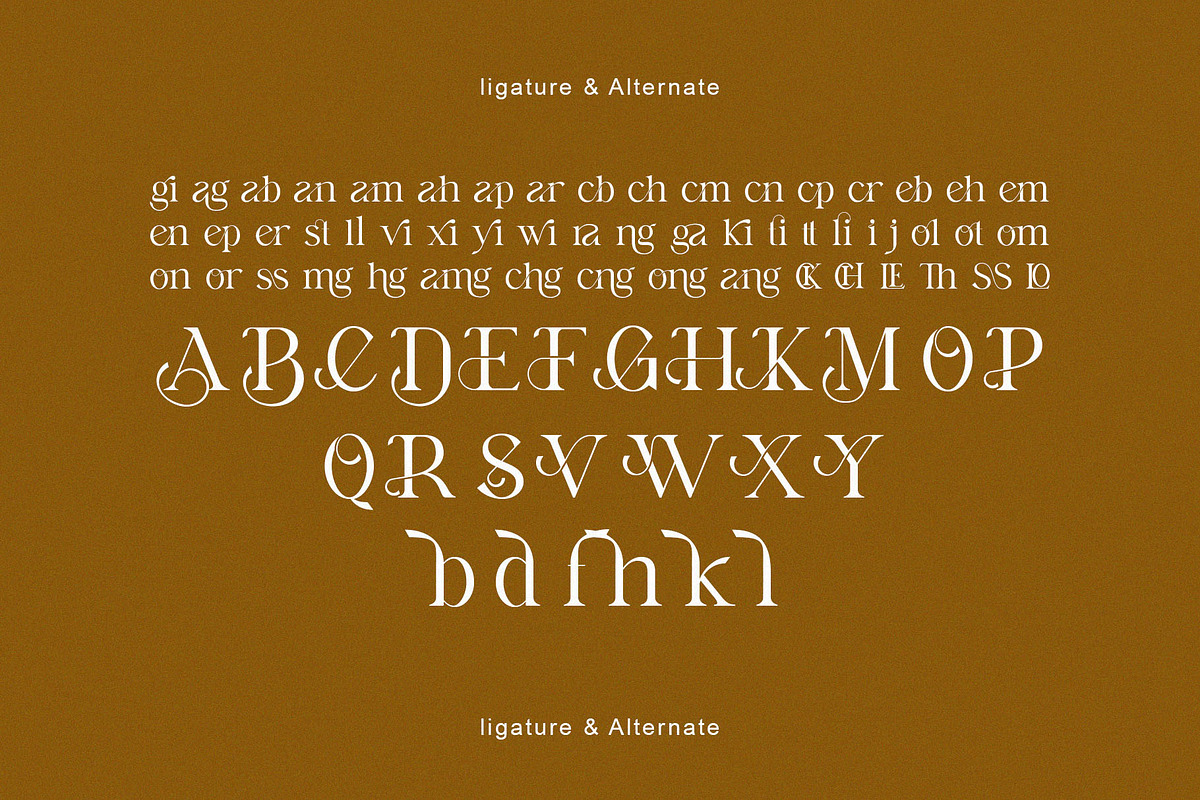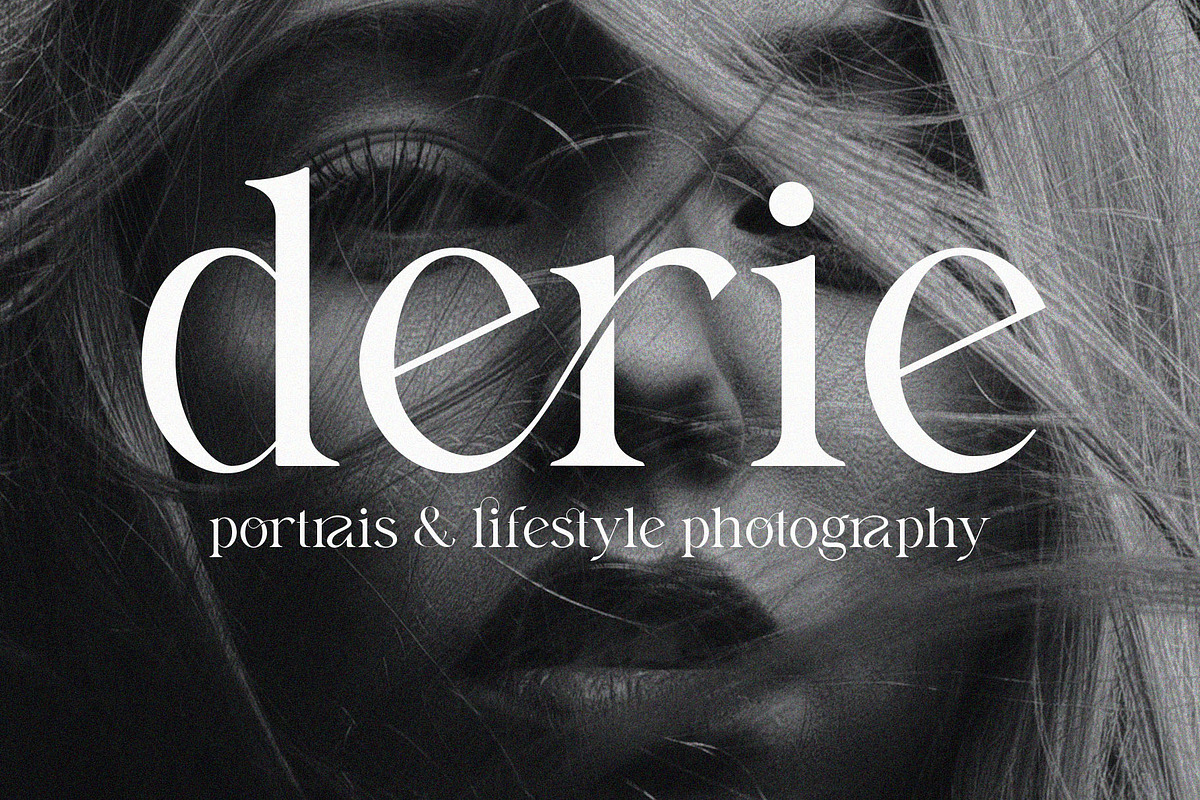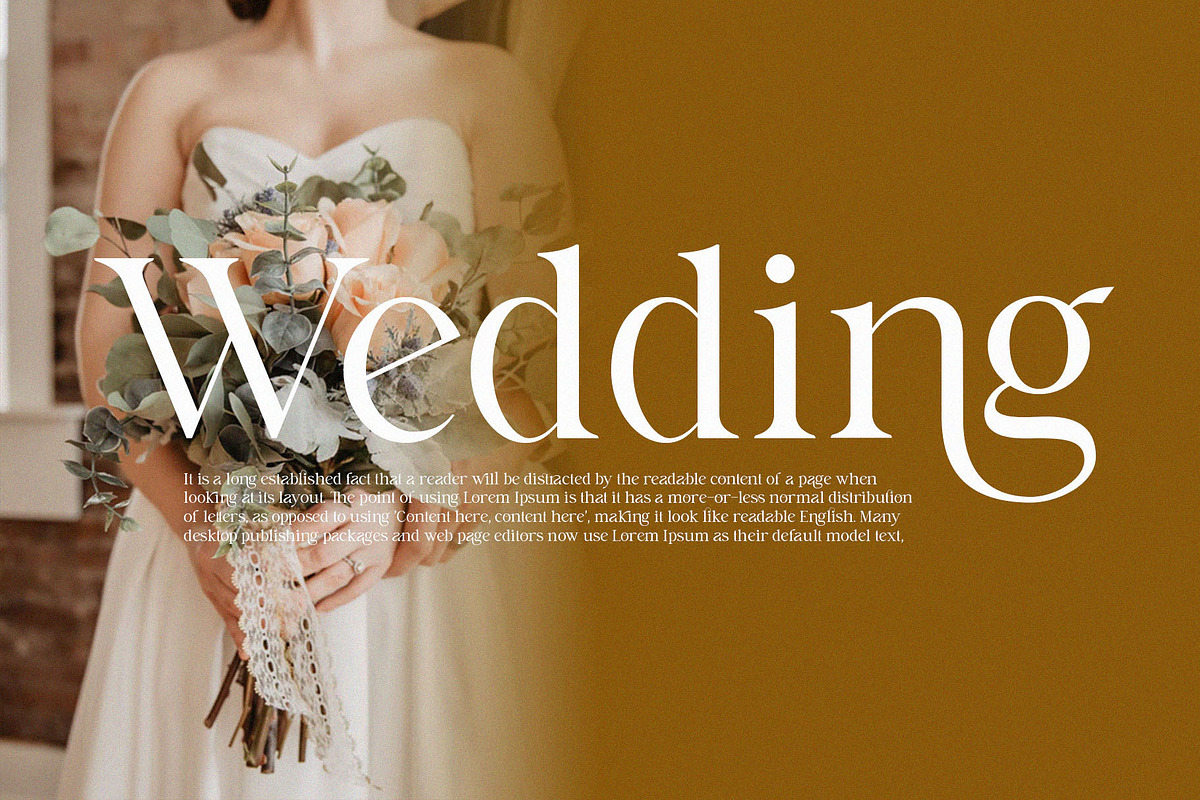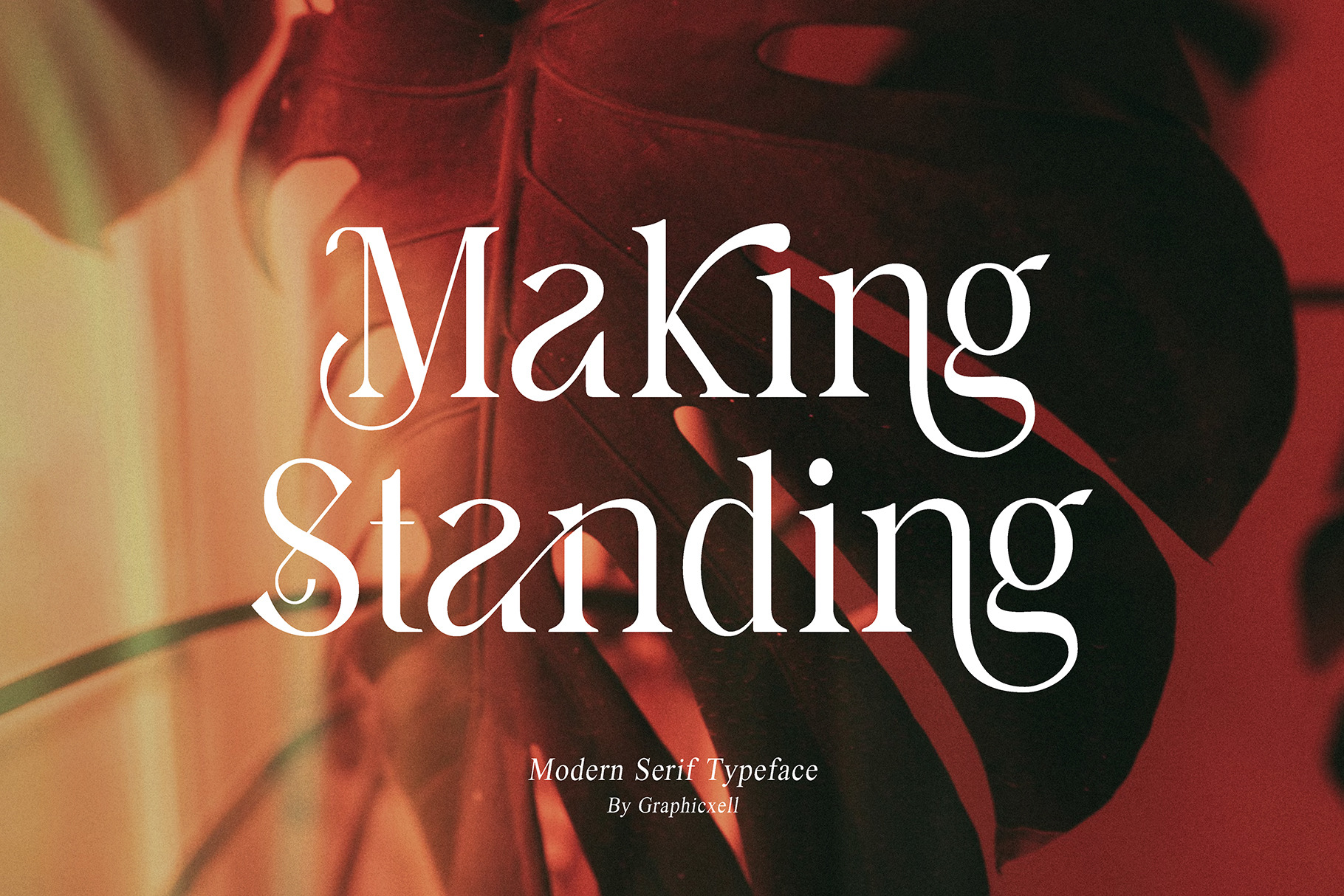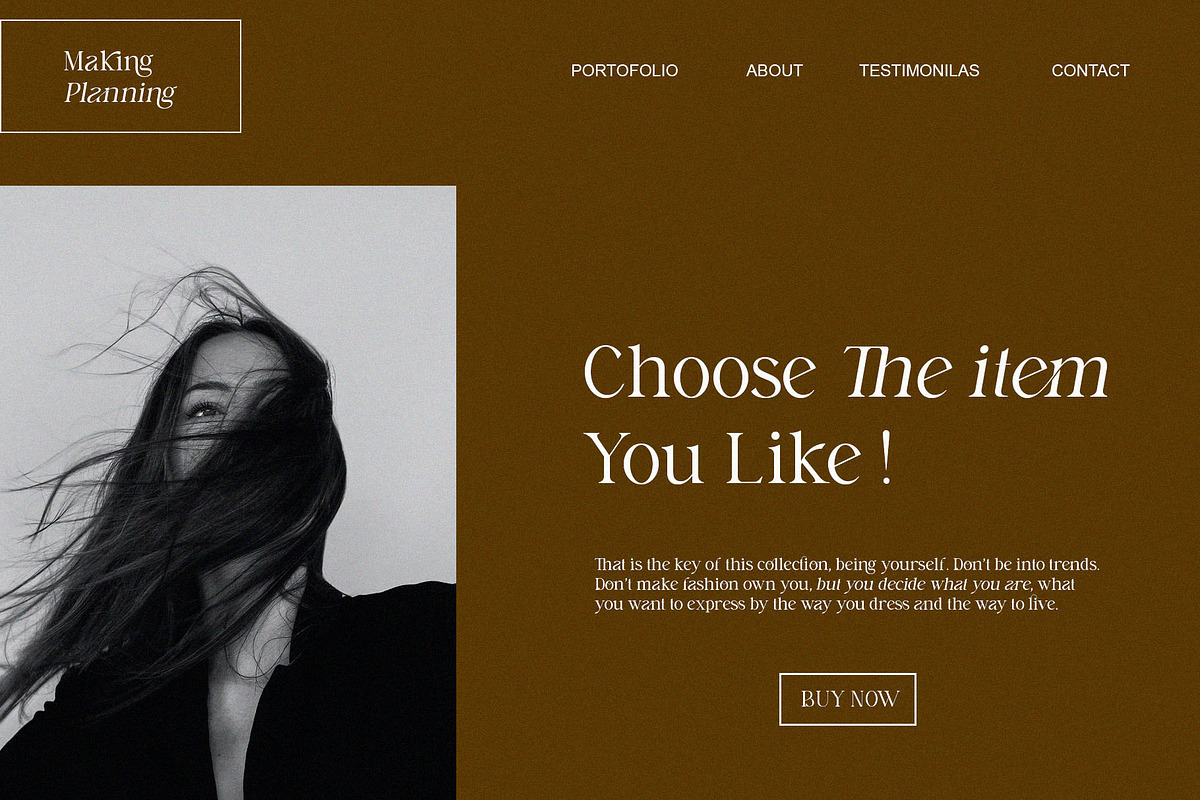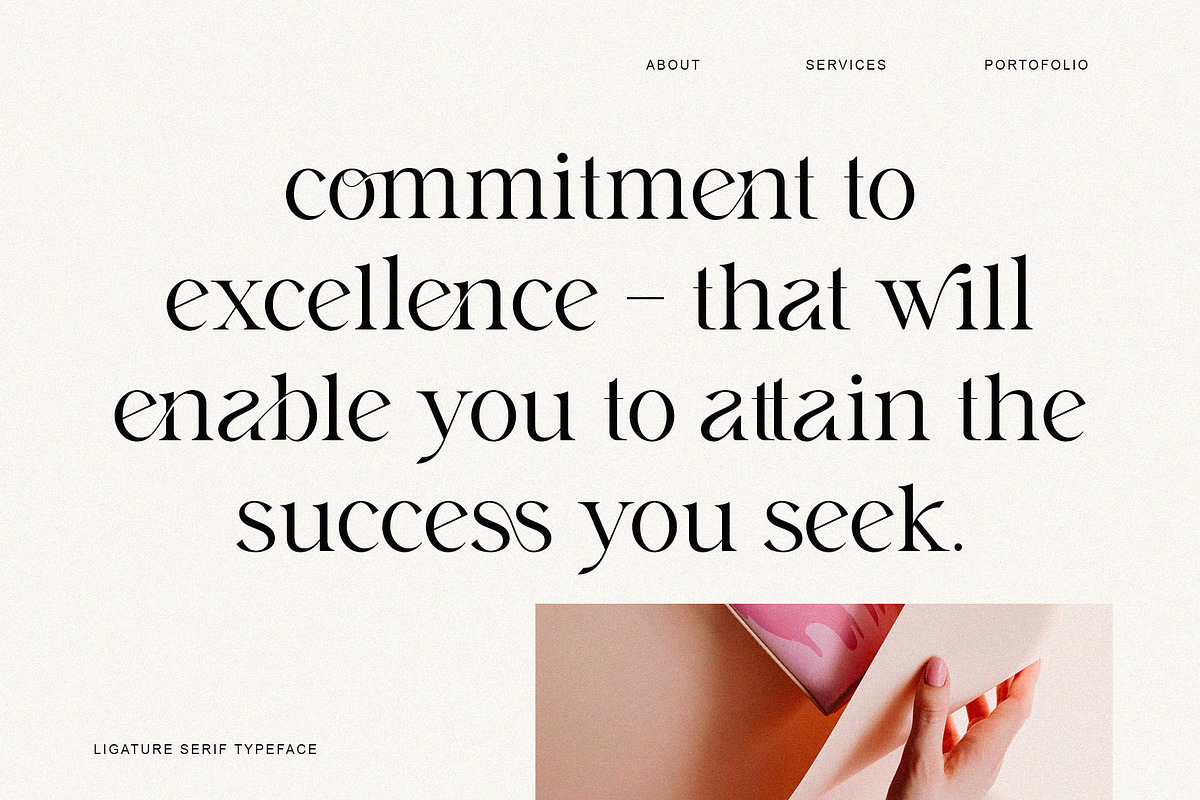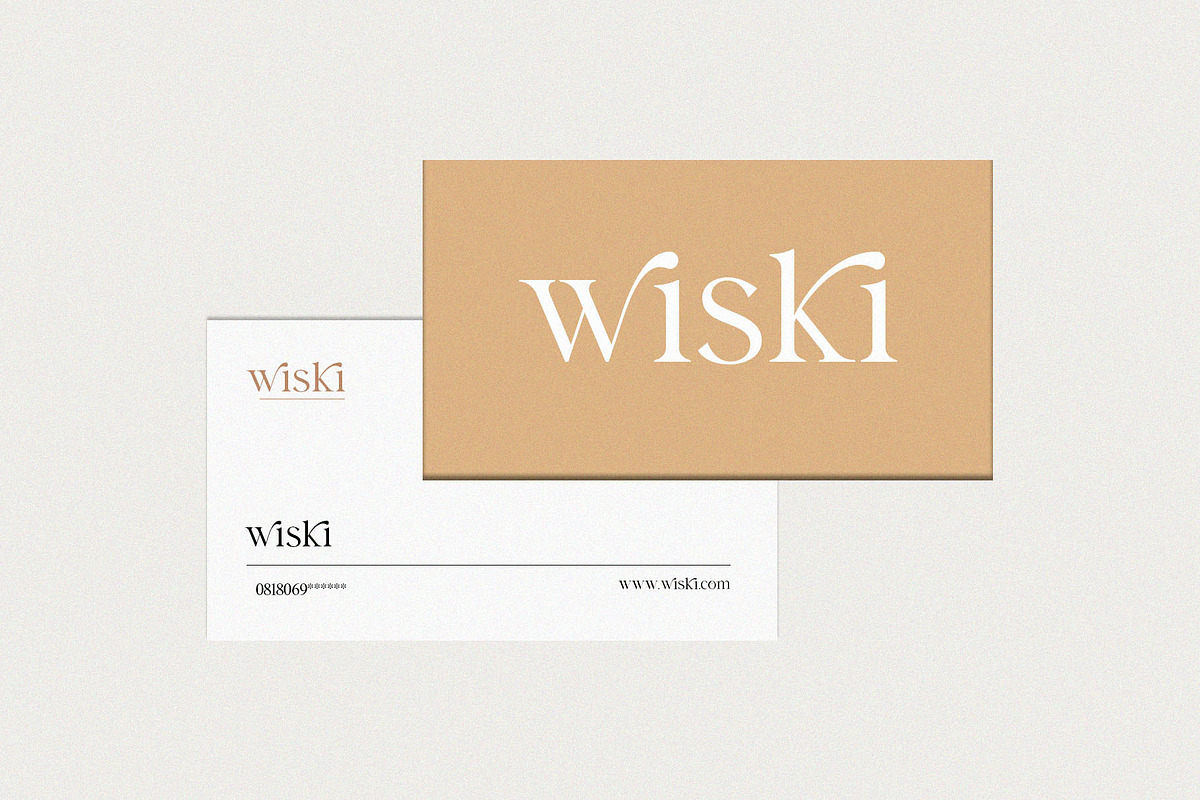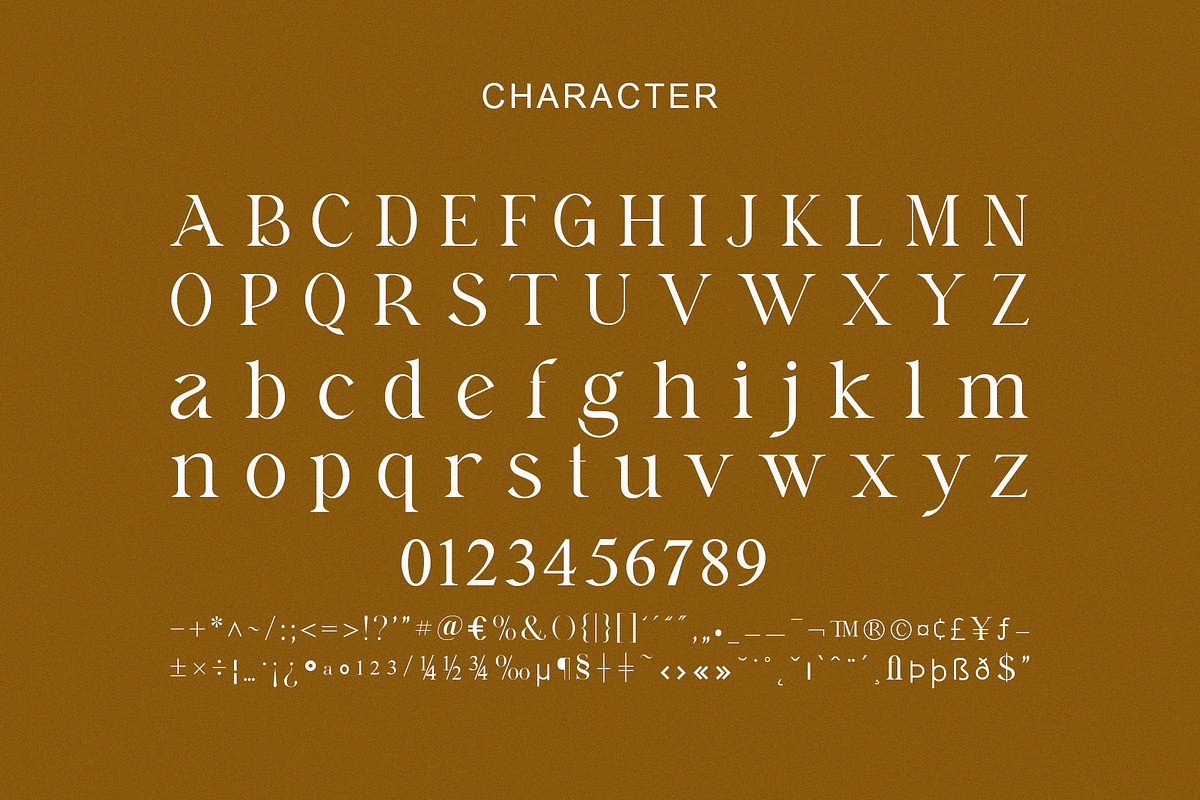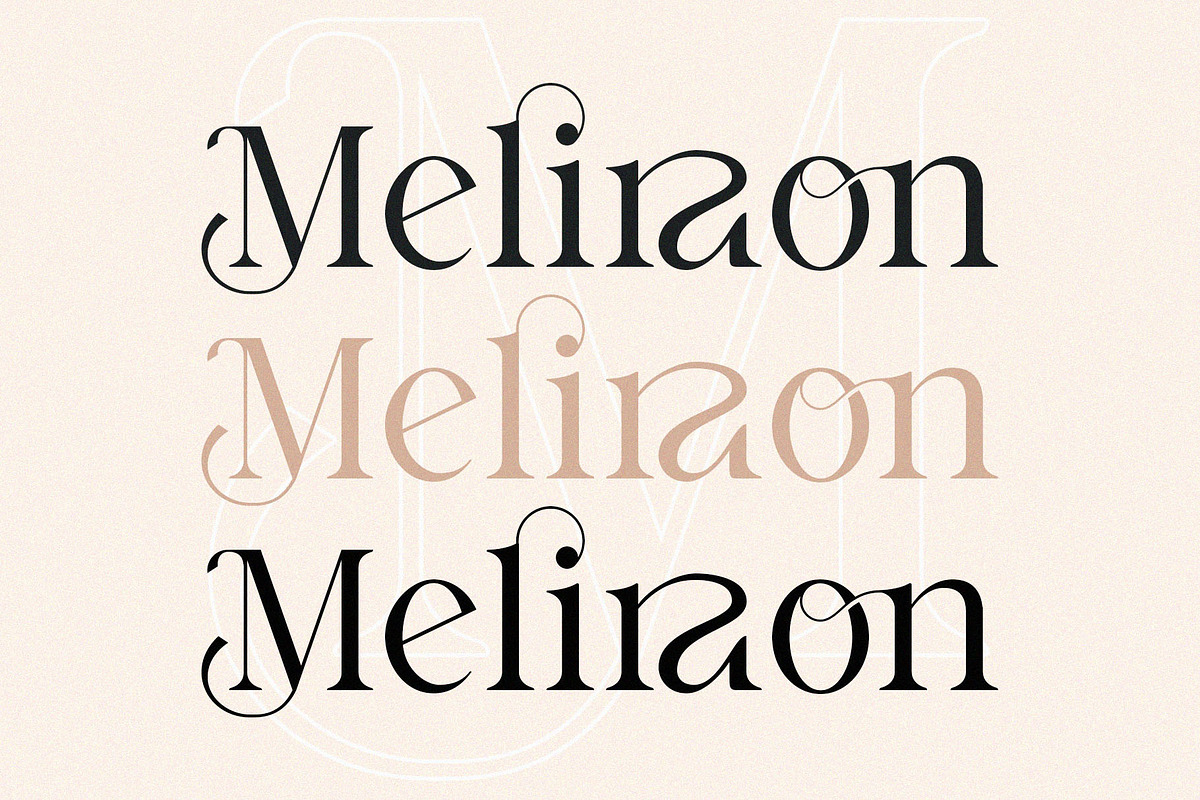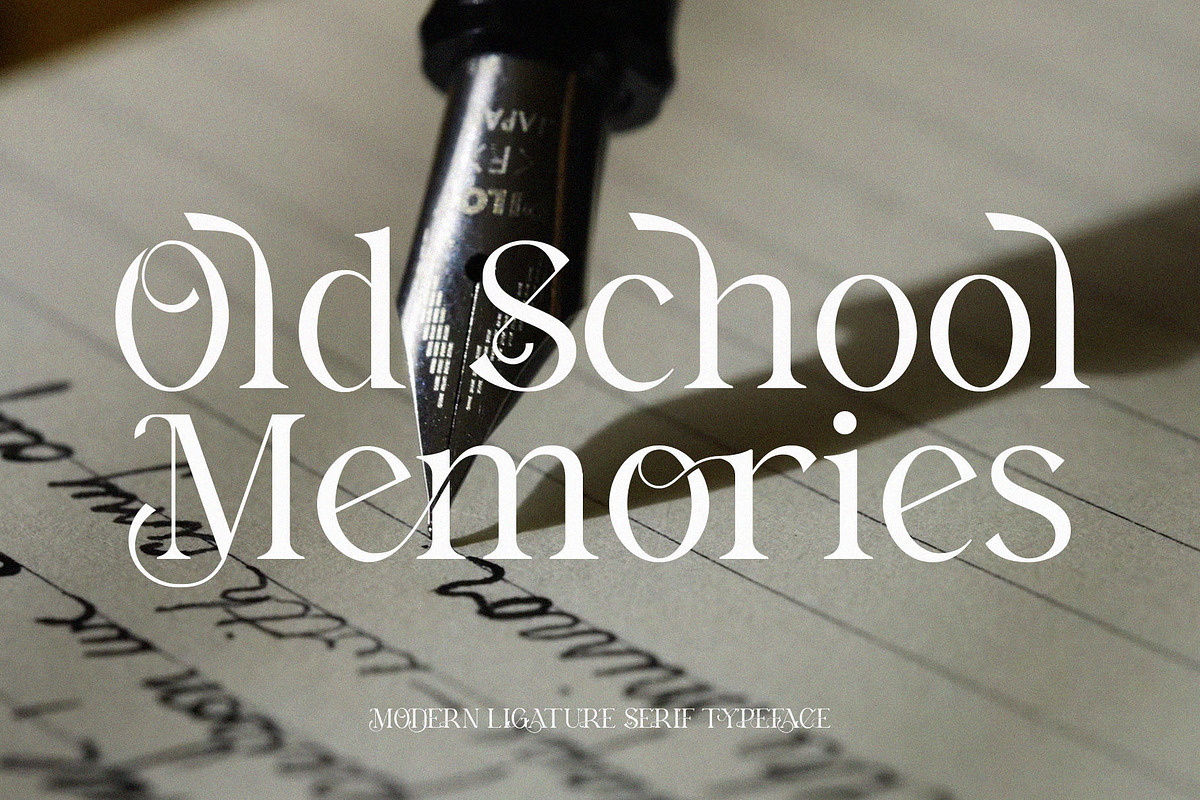
Making Standing - Ligature Typeface
Making Standing inspired by the famous minimalist logo perfect for the purposes of designing templates, brochures, videos, advertising branding, logos, invitation, layout design, elegant crafting, beauty design and more.